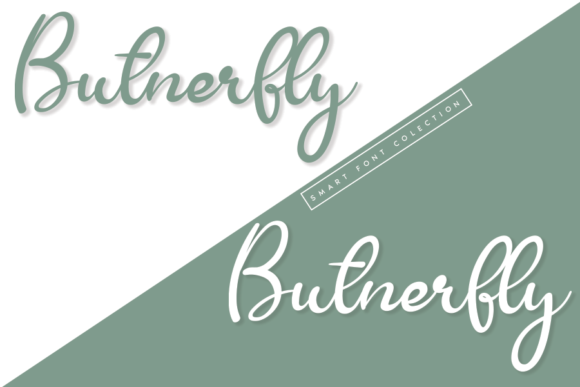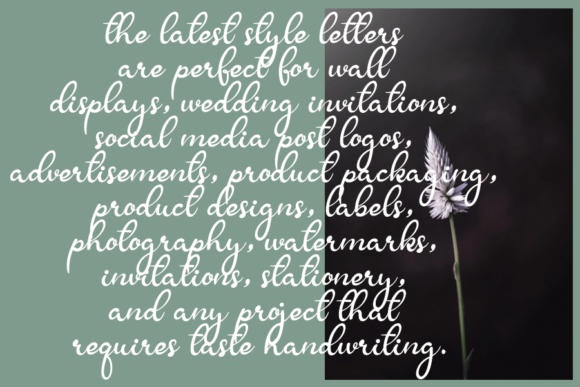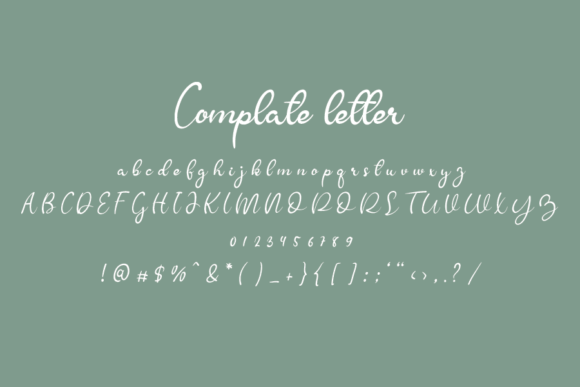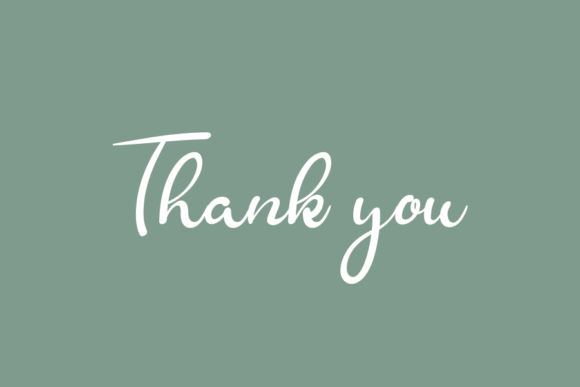
Unlock the Magic of Butnerfly Font
Have you ever been sitting at your desk, staring at a blank page, and suddenly an idea strikes you like a ray of sunshine? That’s exactly what happened to designers when they discovered the enchanting Butnerfly Font. This magical script font is a masterful blend of timeless elegance and authentic calligraphy, making it the perfect addition to any design project.
Butnerfly Font is designed to evoke a sense of sophistication and refinement, while still maintaining a friendly and approachable feel. Its classic style is sure to make a statement in any design, from wedding invitations to branding materials. For designers, Butnerfly Font is a valuable asset, offering a unique and versatile tool to create original and outstanding designs that truly stand out from the crowd.
Butnerfly Font Key Features
- Font Family: A unique, handwritten font with a playful and elegant touch.
- Unique Characteristics: Features a mix of cursive and script elements, giving it a distinctive, handwritten feel with subtle flair and movement.
Butnerfly Font Review
I recently had the chance to work with the Butnerfly font, and I must say, it’s a unique and eye-catching addition to any design project. ✨ Here are some of the things that I think work well:
- Customization options: Butnerfly offers a range of customization options, including different styles and weights, which makes it perfect for creating a consistent look across your project.
- Legibility: The font is highly legible, even at smaller sizes, making it ideal for body text and headings.
- Modern feel: Butnerfly has a modern feel that’s perfect for contemporary designs and brands.
However, I did encounter some limitations while working with Butnerfly: ⚠️
- Limited support for languages: Butnerfly may not support all languages, which could be a problem for projects that require multilingual support.
- Not suitable for formal designs: While Butnerfly is perfect for modern designs, it may not be the best choice for formal or traditional designs.
Overall, I think Butnerfly is a great addition to any designer’s toolkit. It’s versatile, modern, and highly legible, making it perfect for a wide range of projects. However, it’s not without its limitations, so be sure to consider those before making a final decision.
Some common use cases for the Butnerfly font include:
– Designing wedding invitations and stationery.
– Creating elegant titles and headings for presentations.
– Adding a touch of whimsy to social media posts and graphics.
– Using it for branding and logos due to its unique aesthetic.